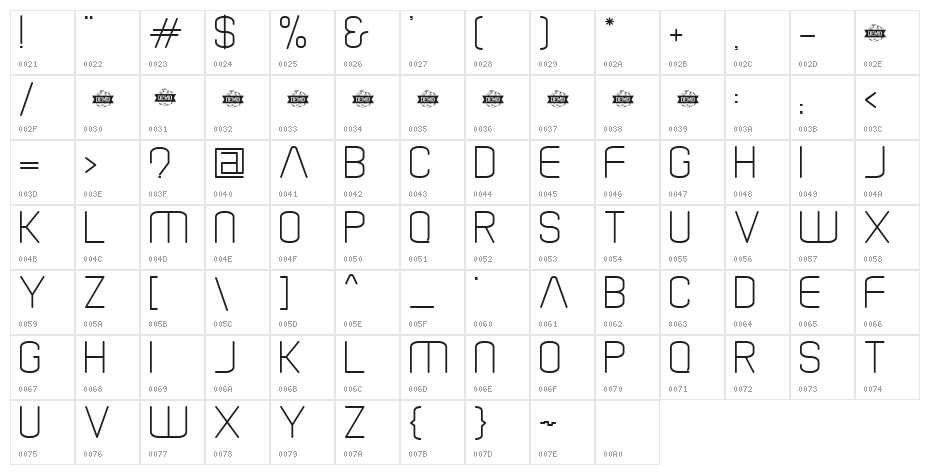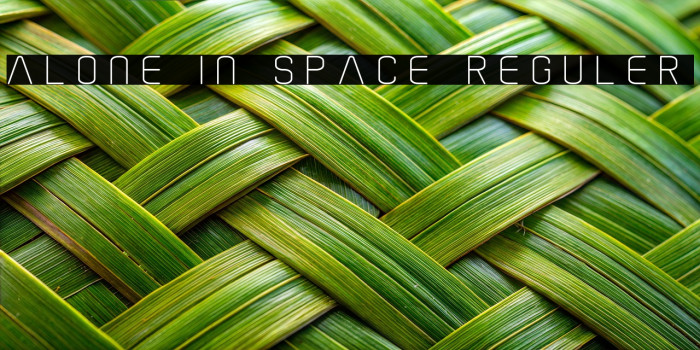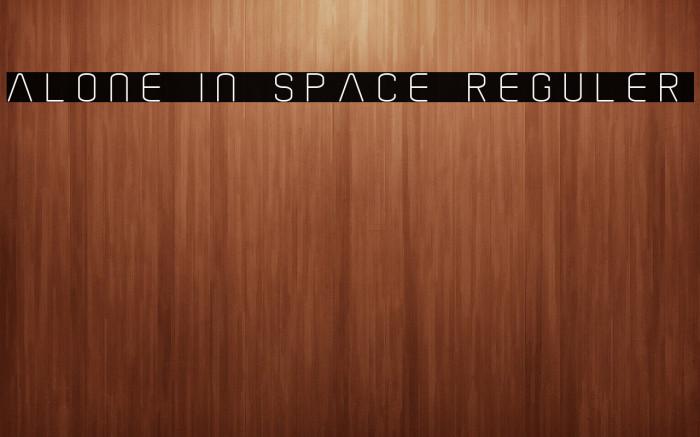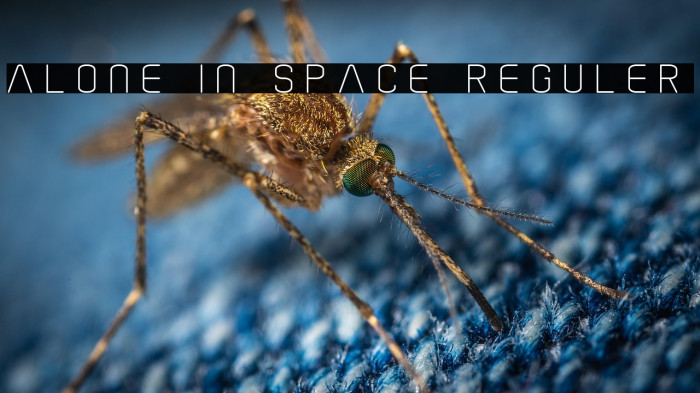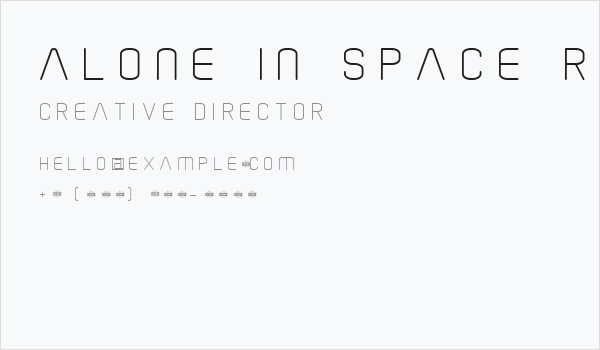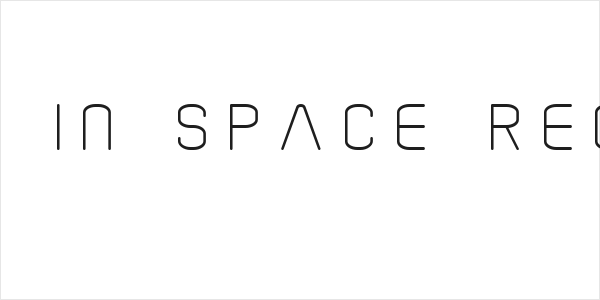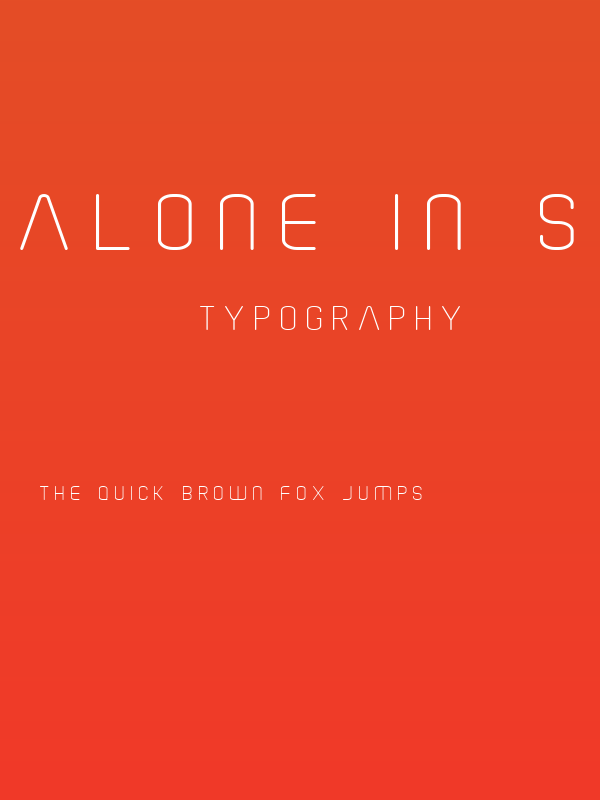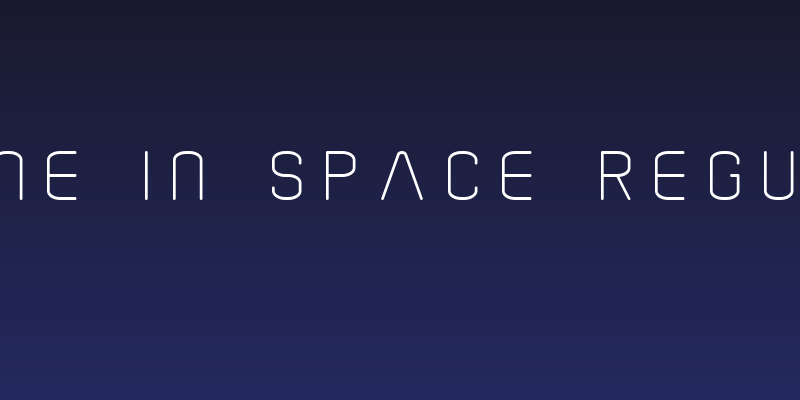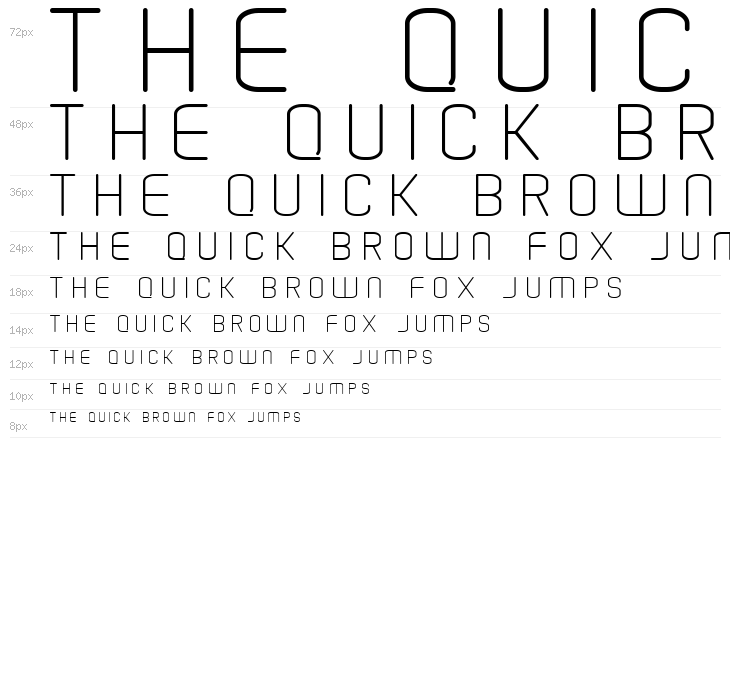
Alone In Space Reguler Font
Alone In Space Reguler Description
This font features a futuristic and minimalist design, characterized by its geometric shapes and clean lines. The uppercase and lowercase letters share a consistent height, creating a uniform appearance. The characters are slightly rounded at the corners, adding a touch of softness to the otherwise angular design. The font maintains a consistent stroke width throughout, contributing to its modern and sleek aesthetic. The special characters are designed to match the overall style, ensuring cohesion across all elements.
| Use Case | Logos, Headlines, Digital interfaces |
| Proposed Projects | Ideal for sci-fi themed projects, technology branding, modern posters, and digital interfaces. |